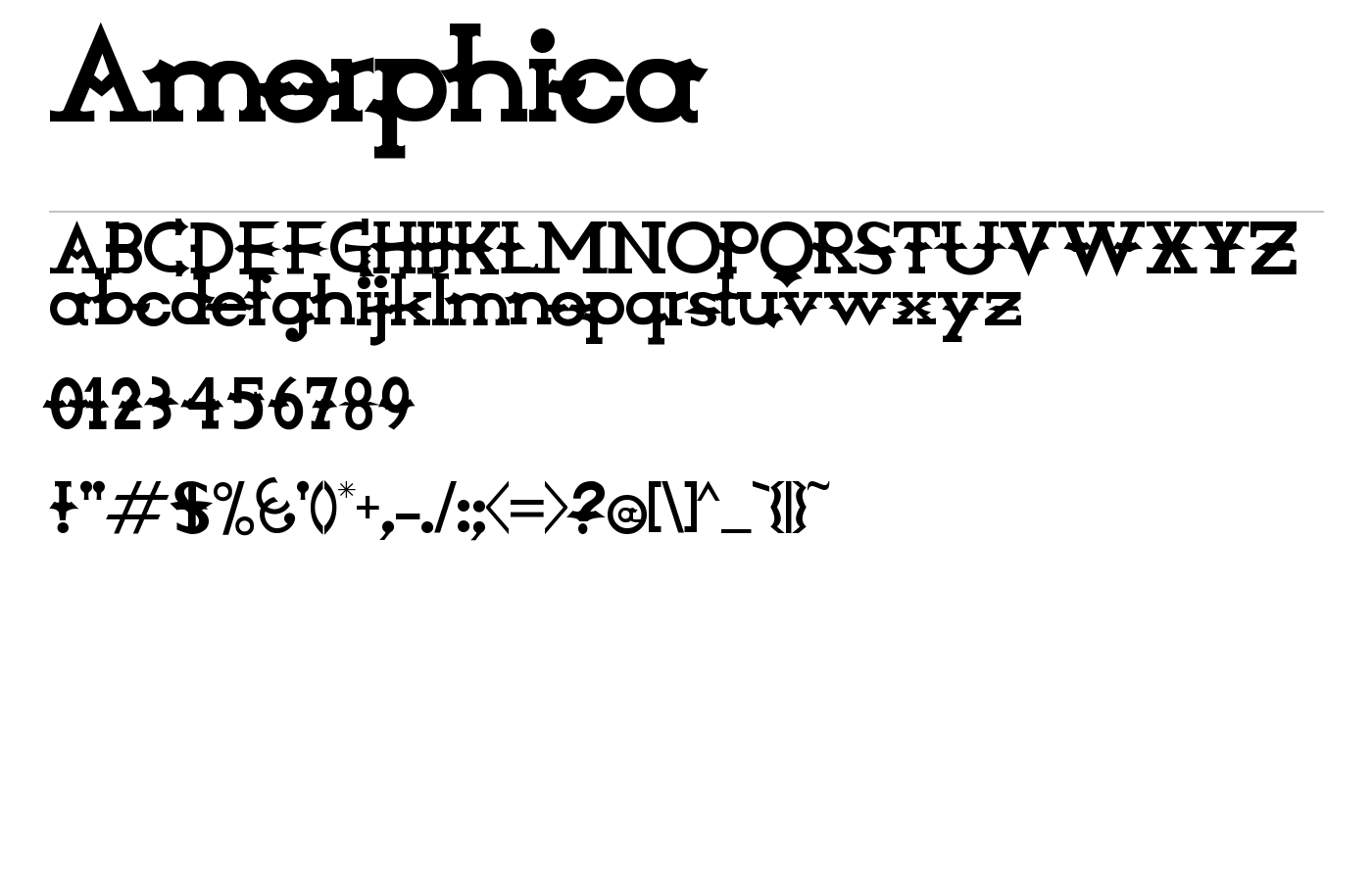
Amorphica is a bold serif font with a strong, modern feel characterized by high contrast between thick and thin strokes and distinctive, angular serifs. Its unique letterforms combine sharp edges and geometric shapes, giving it an avant-garde and artistic personality perfect for eye-catching headlines, logos, and creative branding projects where a dramatic and sophisticated impression is desired. This font works best in display uses, adding an edgy yet elegant flair to fashion, editorial, or luxury brand designs.
Amorphica Font
About Amorphica Font
| Font family | Amorphica Font |
| Designer | Matias Romero |